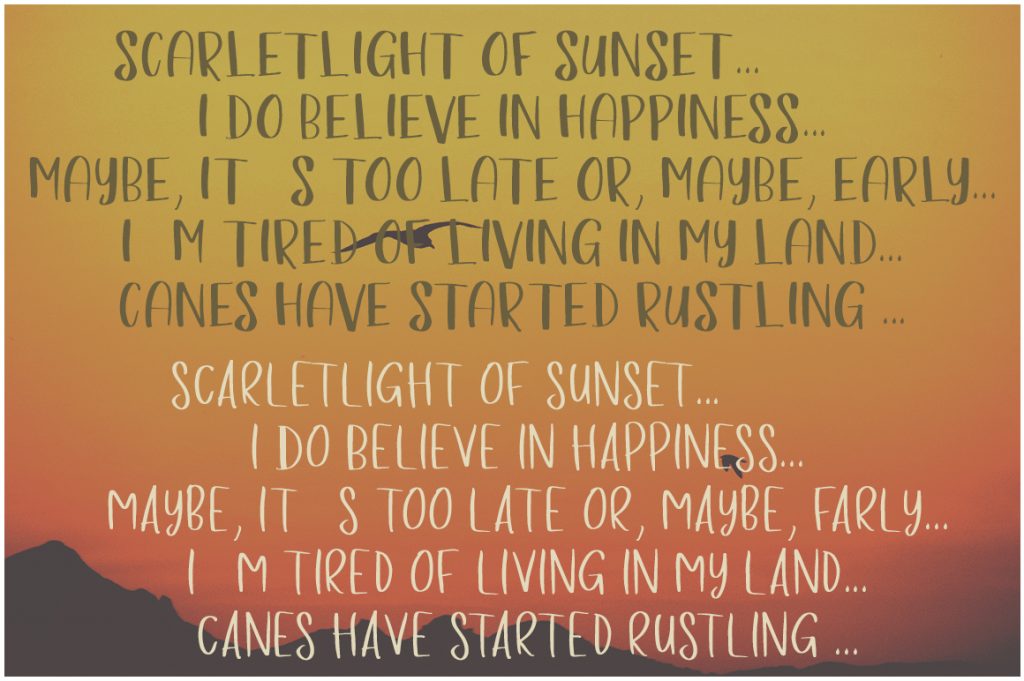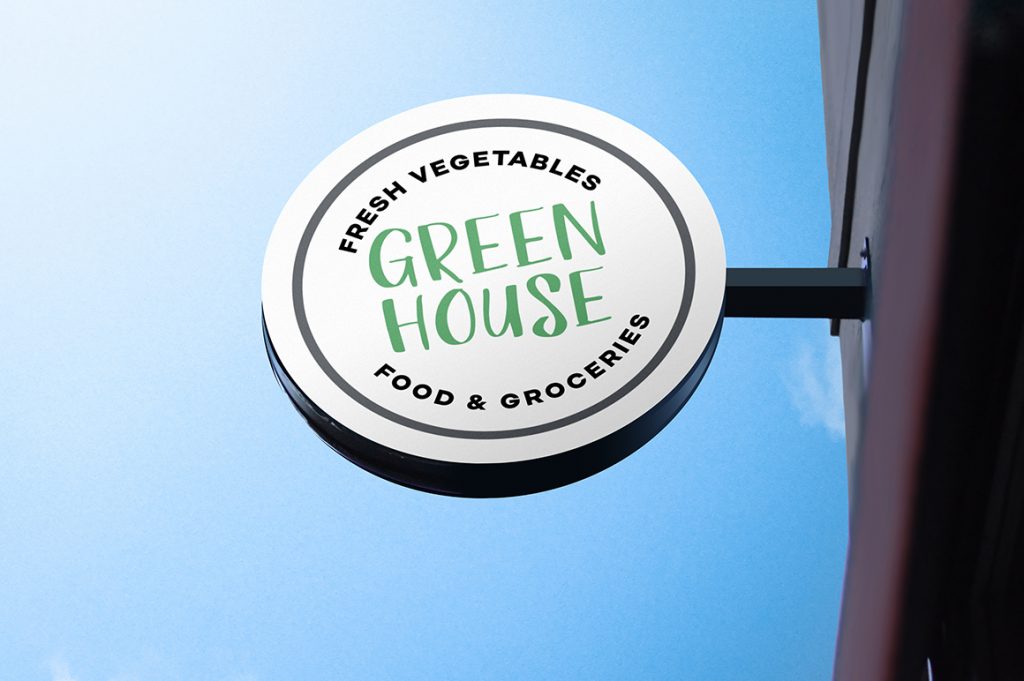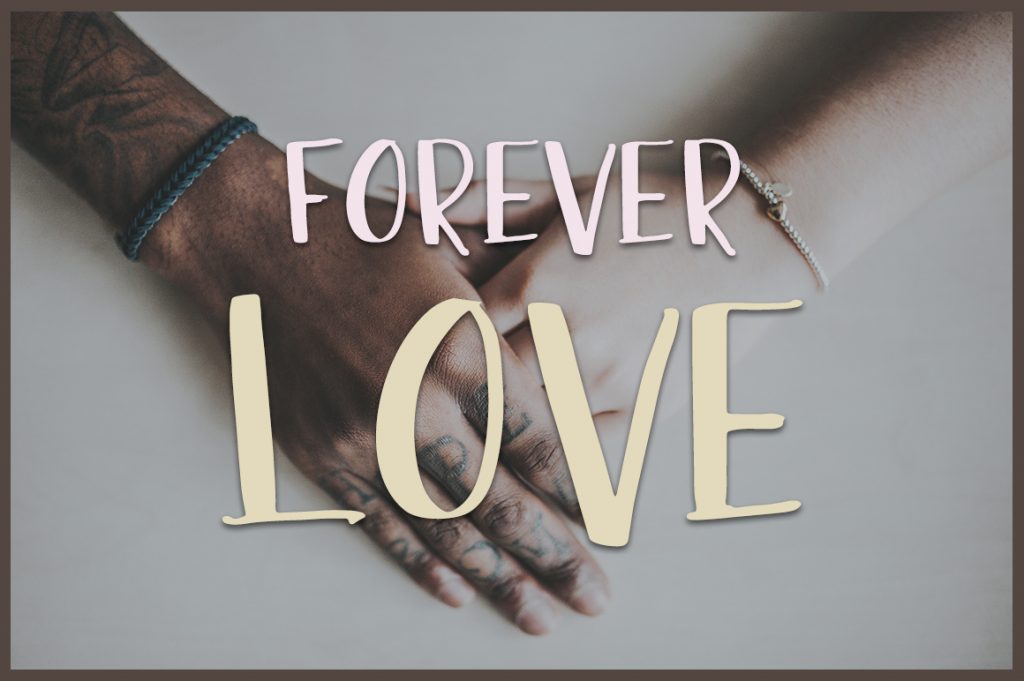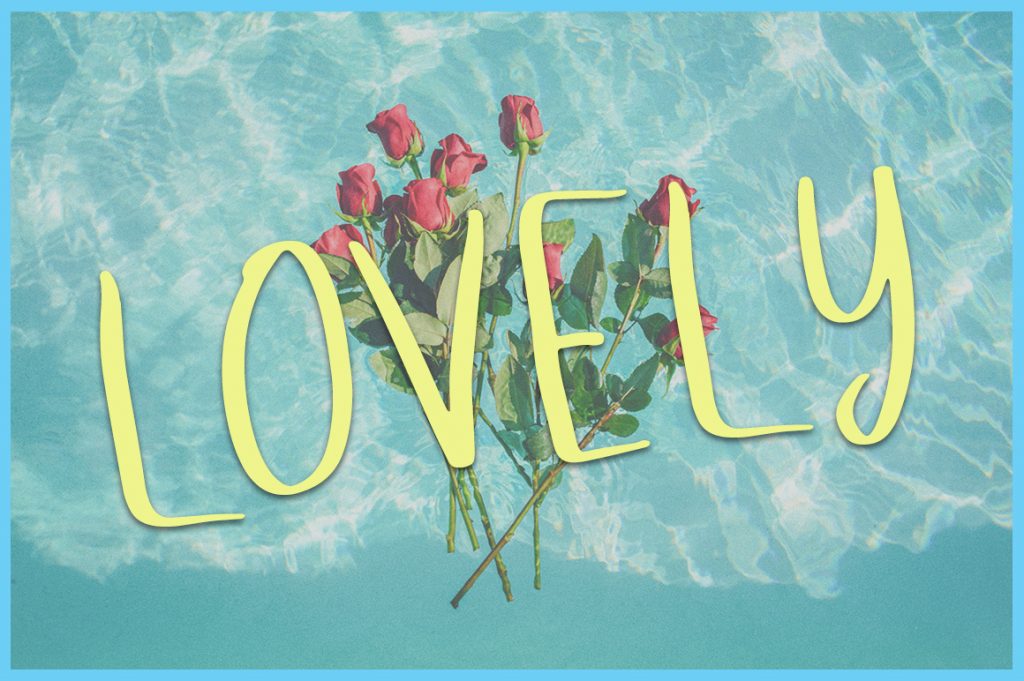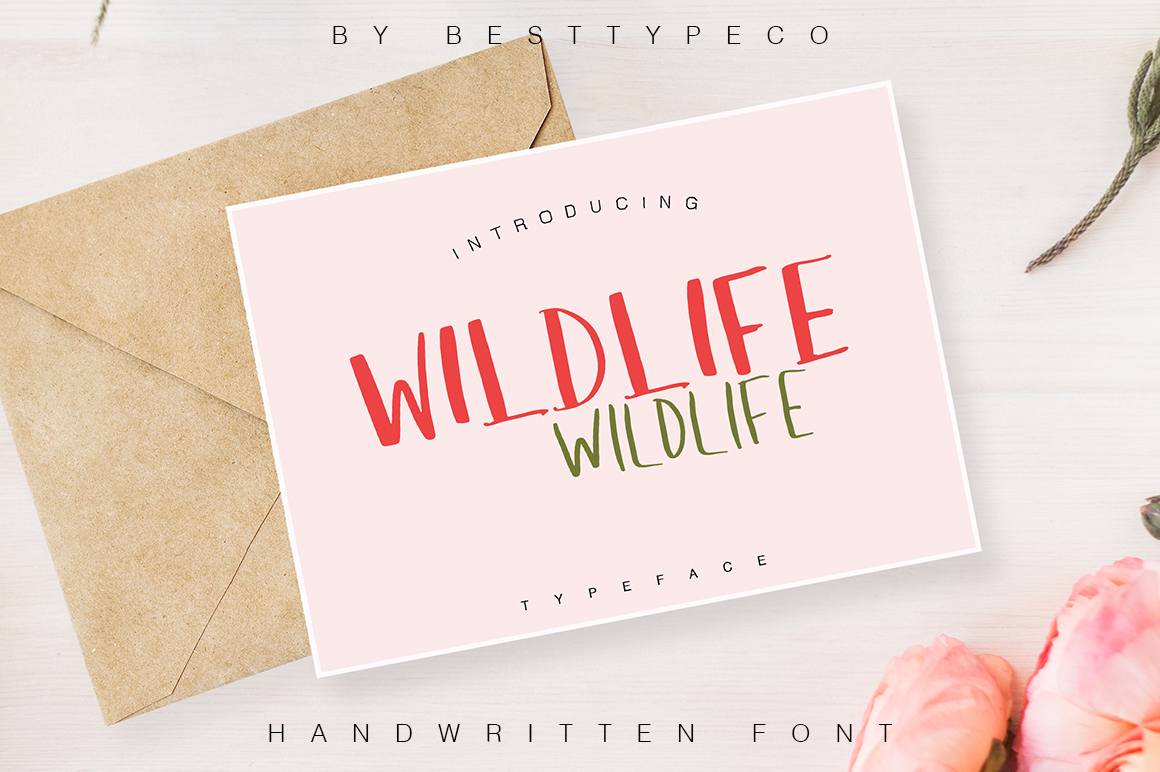
WildLife- Calligraphy Font
WildLife commercial use font – Is a new fresh handmade calligraphy font. It’s suitable for greeting cards, branding materials, business cards, quotes, posters, and more!
This font is perfect for wedding postcard. Or you can create a perfect and unique design of your logos, blogs, stationery, marketing, magazines, and more 🙂